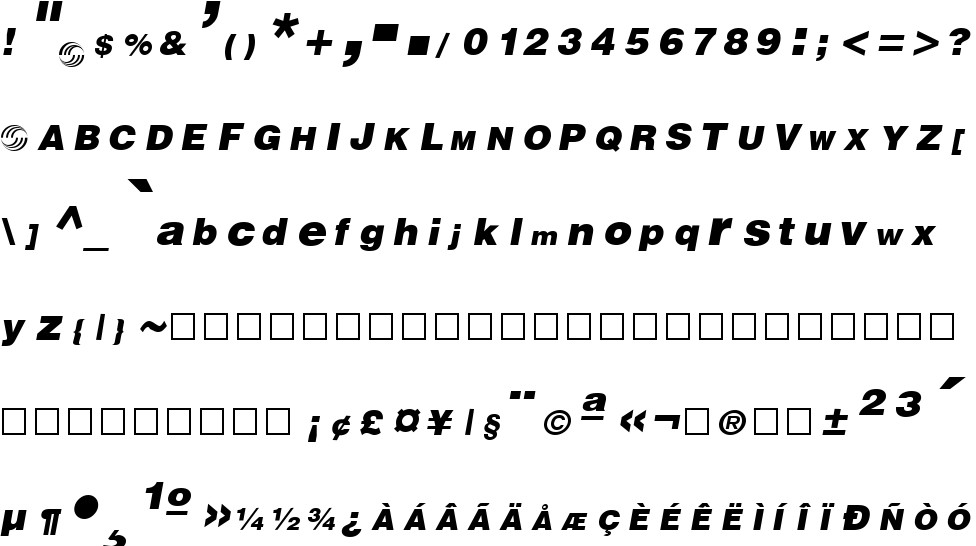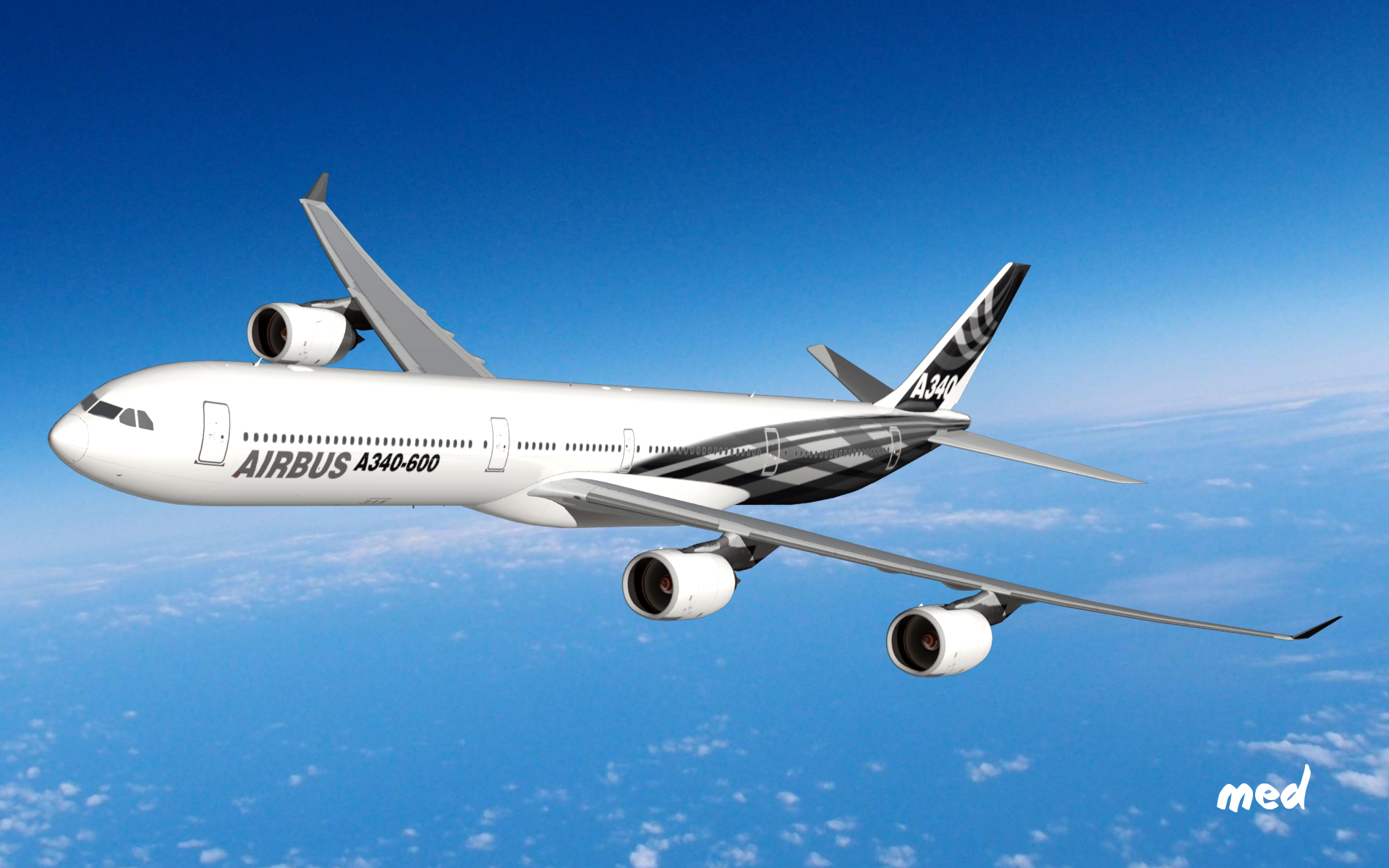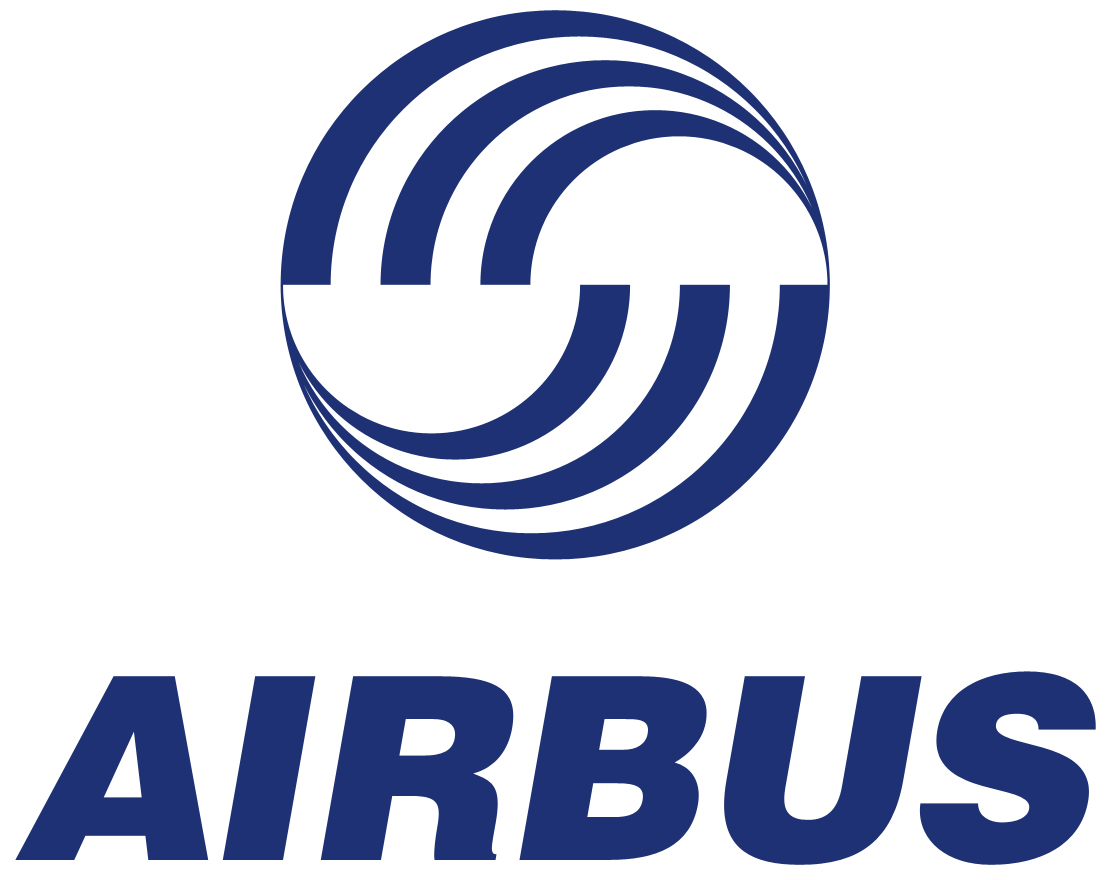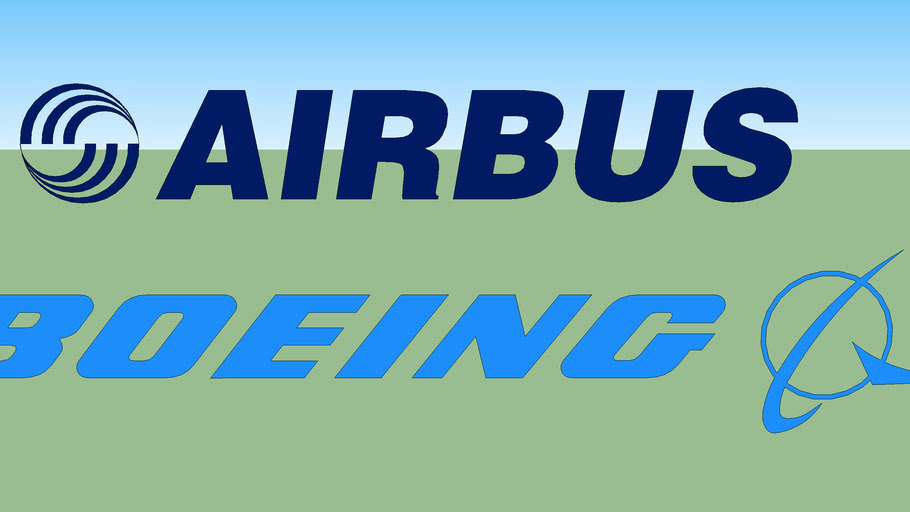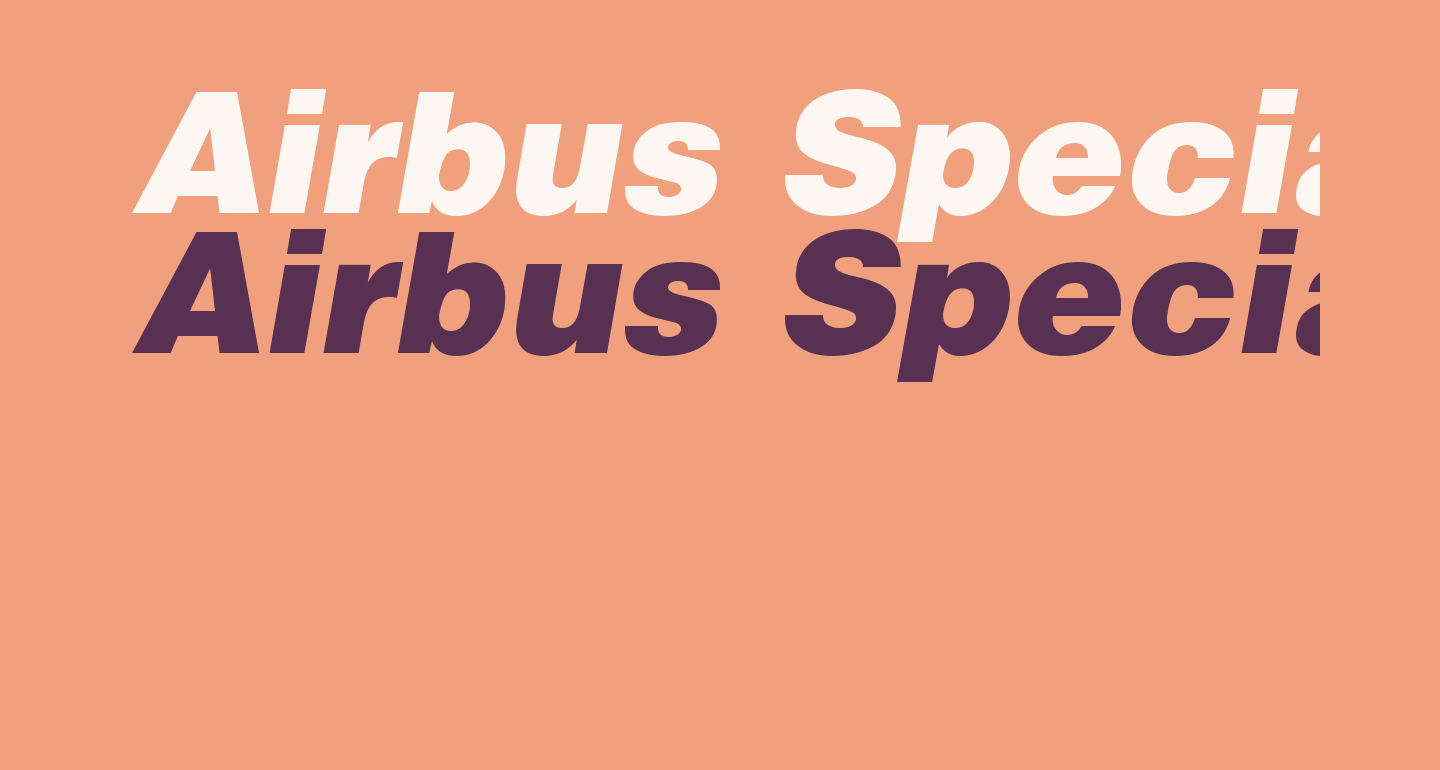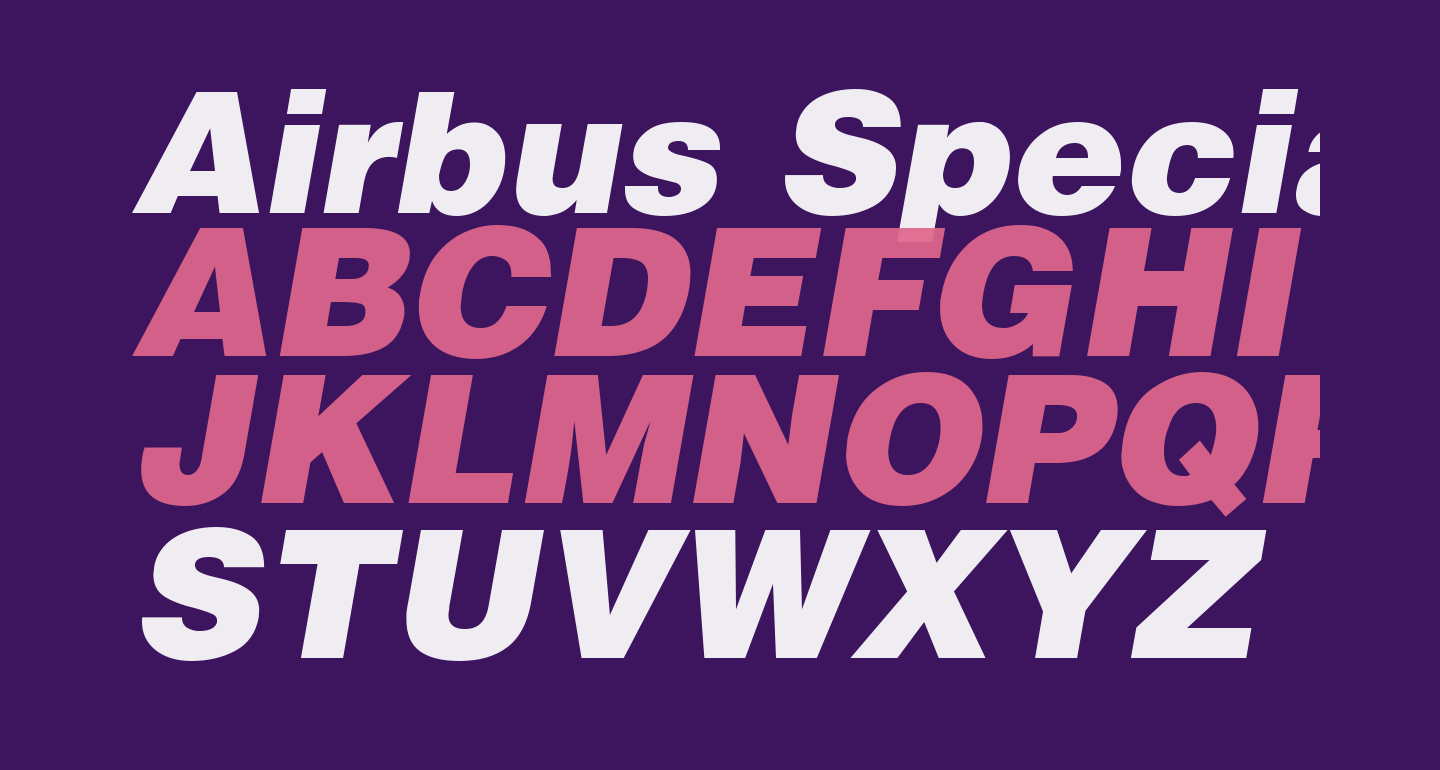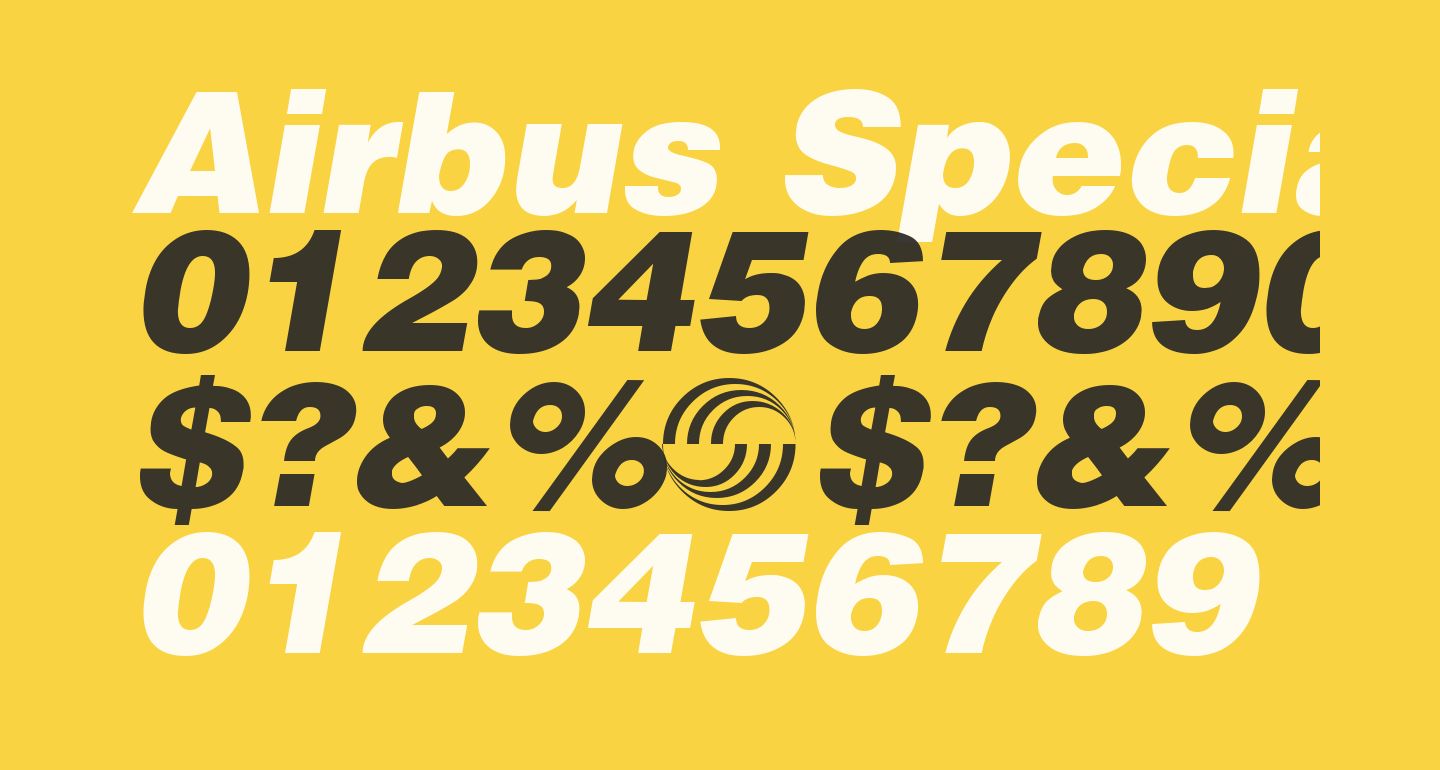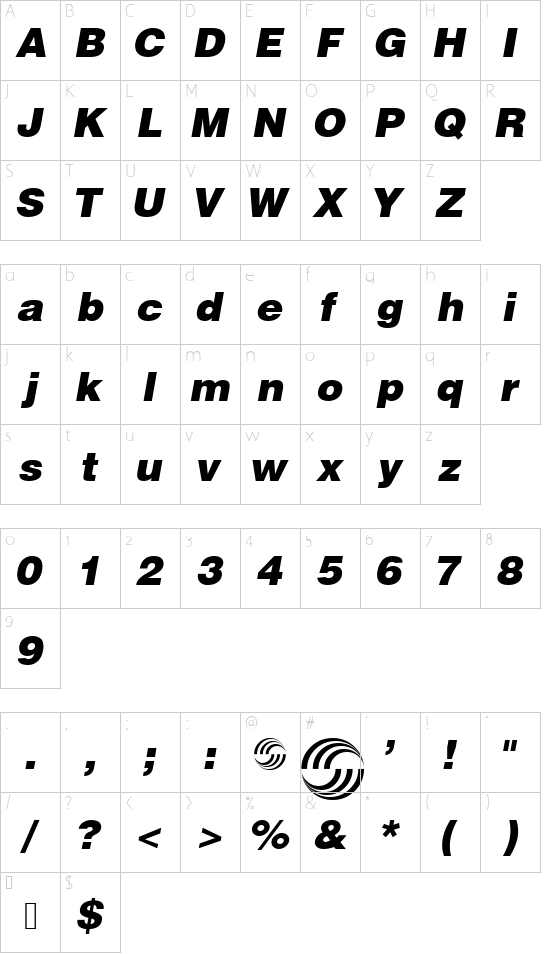
Airbus Special Font . Airbus special by this font has ailogo in #[big] and @[normal] Introducing airbus special font, a versatile and modern typeface that exudes elegance and sophistication. Download airbus special font free! To learn more about the font and typography of the airbus special font, simply enter the text in the field below and click generate. Inter's is an ideal choice. In our commitment to a seamless and inclusive digital experience, airbus has chosen the inter font for all online usages. This special font is perfect for a. Please use the pulldown menu to view different character maps contained in this font.
To learn more about the font and typography of the airbus special font, simply enter the text in the field below and click generate. Please use the pulldown menu to view different character maps contained in this font. Airbus special by this font has ailogo in #[big] and @[normal] In our commitment to a seamless and inclusive digital experience, airbus has chosen the inter font for all online usages. Download airbus special font free! This special font is perfect for a. Download airbus special font free! Introducing airbus special font, a versatile and modern typeface that exudes elegance and sophistication. Inter's is an ideal choice.
Airbus Special Font This special font is perfect for a. In our commitment to a seamless and inclusive digital experience, airbus has chosen the inter font for all online usages. Please use the pulldown menu to view different character maps contained in this font. To learn more about the font and typography of the airbus special font, simply enter the text in the field below and click generate. Airbus special by this font has ailogo in #[big] and @[normal] Introducing airbus special font, a versatile and modern typeface that exudes elegance and sophistication. Inter's is an ideal choice. Download airbus special font free! Download airbus special font free!
Airbus Special free Font What Font Is Airbus Special Font Airbus special by this font has ailogo in #[big] and @[normal] In our commitment to a seamless and inclusive digital experience, airbus has chosen the inter font for all online usages. Please use the pulldown menu to view different character maps contained in this font. To learn more about the font and typography of the airbus special font, simply enter. Airbus Special Font.
[ECAM / PFD] Weird symbols showing / font problem? Page 2 PFD, ND Airbus Special Font Please use the pulldown menu to view different character maps contained in this font. This special font is perfect for a. Inter's is an ideal choice. Airbus special by this font has ailogo in #[big] and @[normal] To learn more about the font and typography of the airbus special font, simply enter the text in the field below and click. Airbus Special Font.
Download free Airbus Special Italic font Airbus Special Font Airbus special by this font has ailogo in #[big] and @[normal] Download airbus special font free! In our commitment to a seamless and inclusive digital experience, airbus has chosen the inter font for all online usages. Inter's is an ideal choice. To learn more about the font and typography of the airbus special font, simply enter the text in the. Airbus Special Font.
Airbus A350 Logo Airbus Special Font This special font is perfect for a. Please use the pulldown menu to view different character maps contained in this font. Airbus special by this font has ailogo in #[big] and @[normal] To learn more about the font and typography of the airbus special font, simply enter the text in the field below and click generate. Introducing airbus special font,. Airbus Special Font.
My Logo Pictures Airbus Logos Airbus Special Font Download airbus special font free! In our commitment to a seamless and inclusive digital experience, airbus has chosen the inter font for all online usages. This special font is perfect for a. Inter's is an ideal choice. Introducing airbus special font, a versatile and modern typeface that exudes elegance and sophistication. Airbus special by this font has ailogo in #[big]. Airbus Special Font.
FSLabs Airbus VC HD font A320X Unsupported Mods Flight Sim Labs Airbus Special Font Airbus special by this font has ailogo in #[big] and @[normal] Introducing airbus special font, a versatile and modern typeface that exudes elegance and sophistication. This special font is perfect for a. Download airbus special font free! To learn more about the font and typography of the airbus special font, simply enter the text in. Airbus Special Font.
Airbus Special шрифт Airbus Special Font Introducing airbus special font, a versatile and modern typeface that exudes elegance and sophistication. In our commitment to a seamless and inclusive digital experience, airbus has chosen the inter font for all online usages. Download airbus special font free! This special font is perfect for a. Airbus special by this font has ailogo in #[big]. Airbus Special Font.
Airbus Font Download Free for Desktop & font Airbus Special Font To learn more about the font and typography of the airbus special font, simply enter the text in the field below and click generate. Inter's is an ideal choice. Please use the pulldown menu to view different character maps contained in this font. Airbus special by this font has ailogo in #[big] and @[normal] Download airbus special font free! Download. Airbus Special Font.
Airbus Special free Font What Font Is Airbus Special Font To learn more about the font and typography of the airbus special font, simply enter the text in the field below and click generate. Introducing airbus special font, a versatile and modern typeface that exudes elegance and sophistication. In our commitment to a seamless and inclusive digital experience, airbus has chosen the inter font for all online usages. Download airbus. Airbus Special Font.